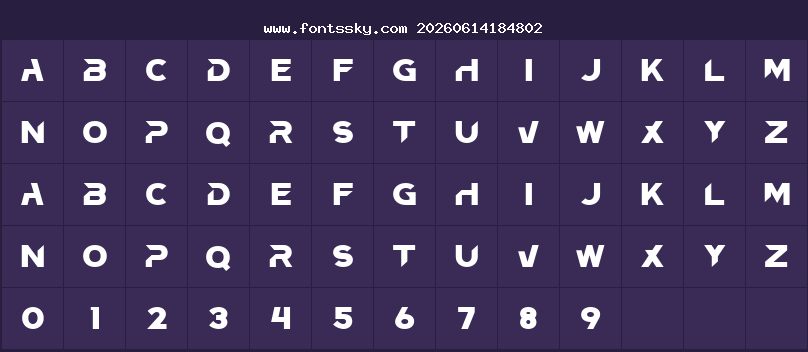
FRIZON Preview
• Font Name: FRIZON
• Full Font Name: FRIZON
About FRIZON.ttf
FRIZON.ttf is a modern, elegant sans-serif font designed for ultimate readability and visual harmony. Perfect for branding, headlines, web design, and print materials.